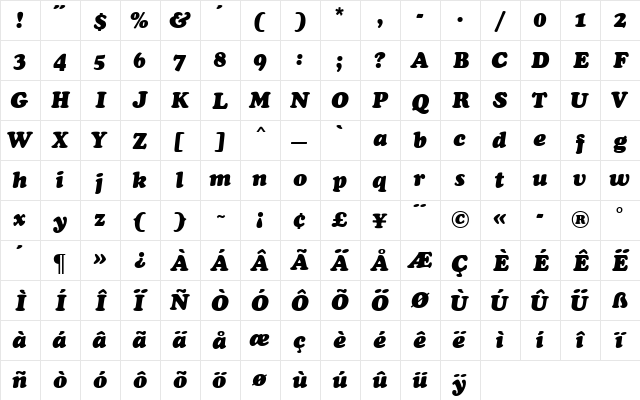
Cooper Black MN Black Italic
Design Context for Cooper Black MN Typeface
Cooper Black MN is a composed and adaptable typeface that performs quietly and consistently across a wide range of design contexts. Its italic angle brings a sense of urgency and motion to the letterforms.
Pro Tip: Use Cooper Black MN for emphasis, pull quotes, and subheadings where its slanted energy can add rhythm to the layout.